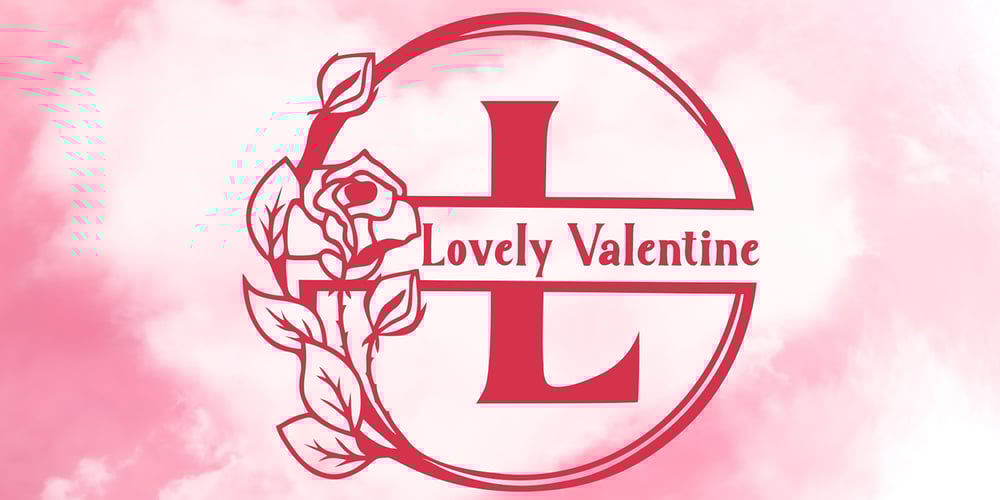
Monogram Lovely Font Family was designed by Isroni Yoga Prasetya and published by Yoga Letter. Monogram Lovely contains 2 styles and family package options. “Lovely Valentine Monogram” is a beautiful and elegant serif monogram font. This font is decorated with monograms combined with beautiful flowers. This font is equipped with uppercase, lowercase, ligatures, numerals, punctuations, and multilingual support. Very suitable for valentine, christmas, wedding, invitations, stickers, banners, posters, logos, and others.